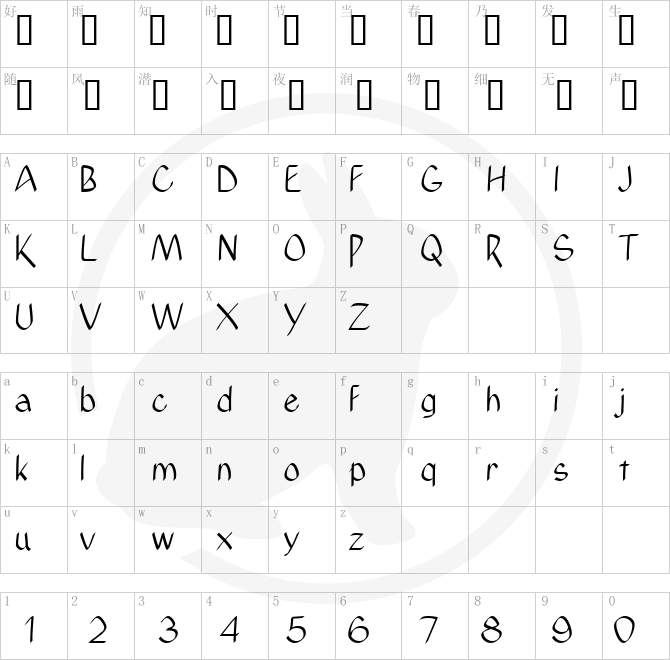
- Font Name:Xahosch
Xahosch.ttf is a very beautiful artistic font, Xahosch.ttf is widely used in the design and printing of various books and pictures,Xahosch.ttf has a strong visual impact,Xahosch.ttf is a commonly used font in newspapers, magazines and books, and is used in posters, e-commerce Poster design, store design, logo design, font design and other fields.Xahosch.